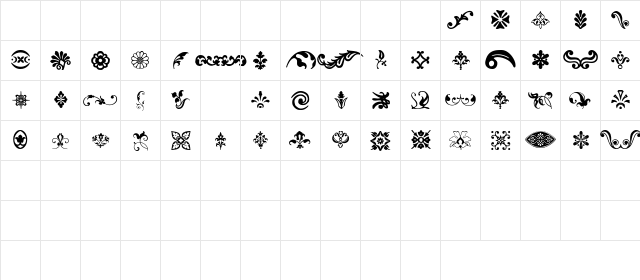
BeautifulOrnamentsThree Regular
Design Context for BeautifulOrnamentsThree Typeface
BeautifulOrnamentsThree is built around its visual character rather than neutral utility — its distinctive forms are designed to make an impression at display sizes.
Font Pairing: Pair with a clean neutral sans-serif for body copy to let BeautifulOrnamentsThree's character lead without overwhelming the composition.
Pro Tip: Use BeautifulOrnamentsThree exclusively at display sizes — it was designed to be seen, not read at length. Let a neutral companion handle body copy.